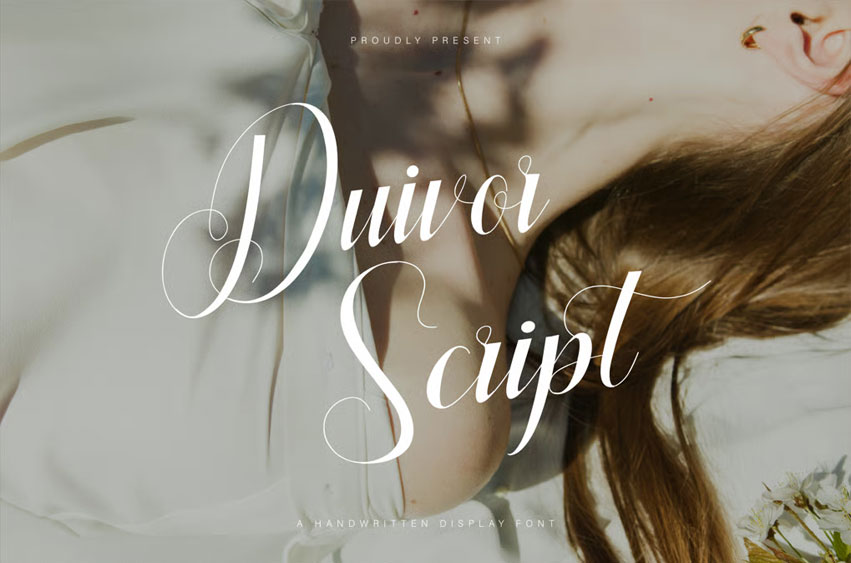
Duivor Font is a unique script font that blends elegant curves with modern fluidity, making it perfect for designs that require a touch of sophistication.
Its handwritten style exudes personal charm while maintaining readability, ideal for branding, invitations, and creative projects where individuality is key.